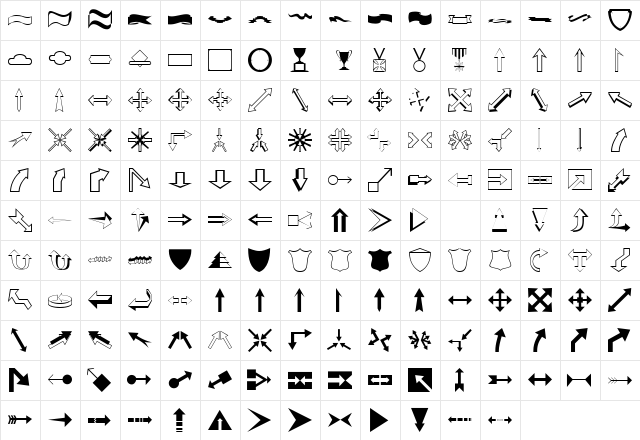
Arrows Regular
Design Context for Arrows Typeface
Arrows takes a measured approach to typography — its balanced proportions and neutral character make it a reliable workhorse for both digital and print work.